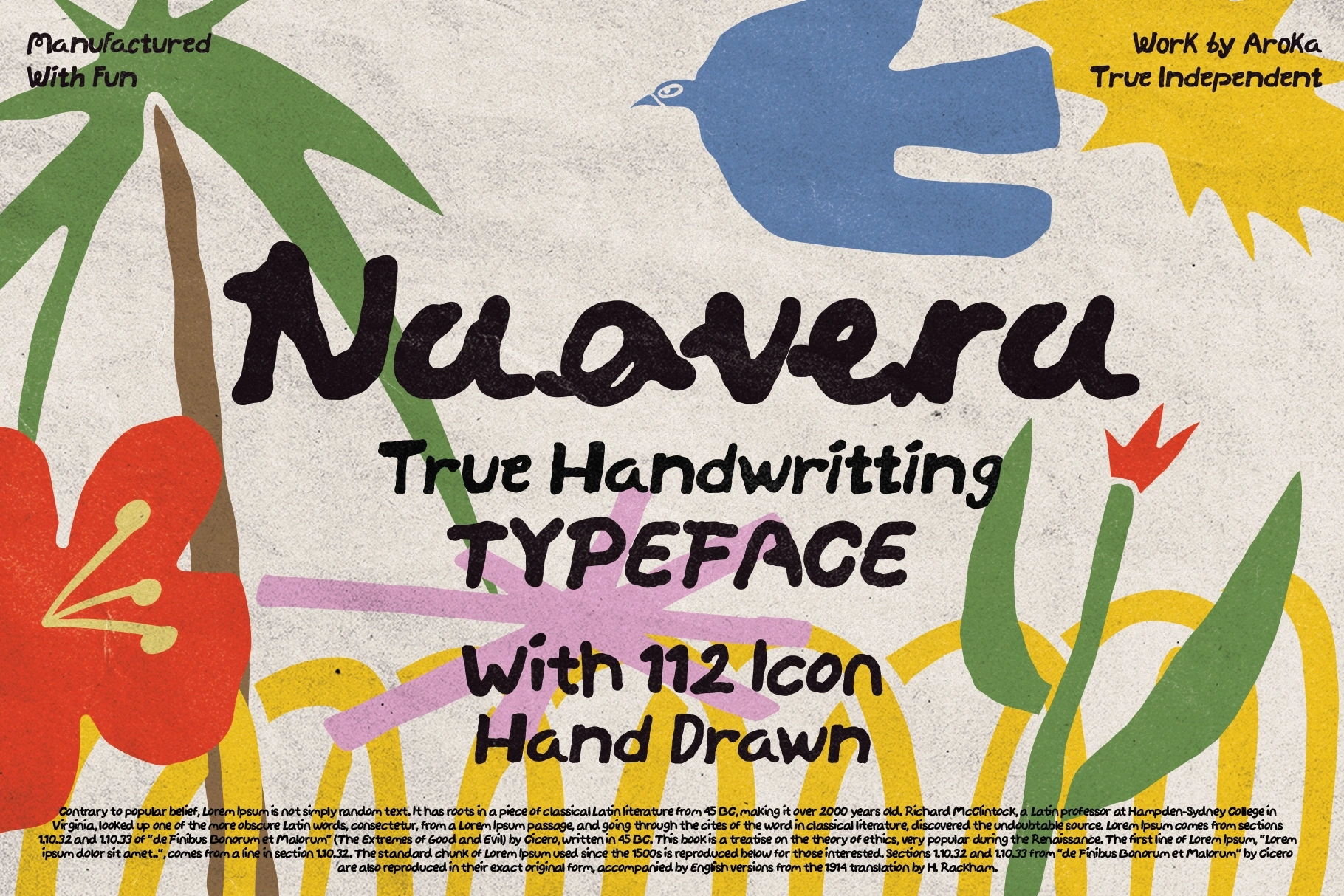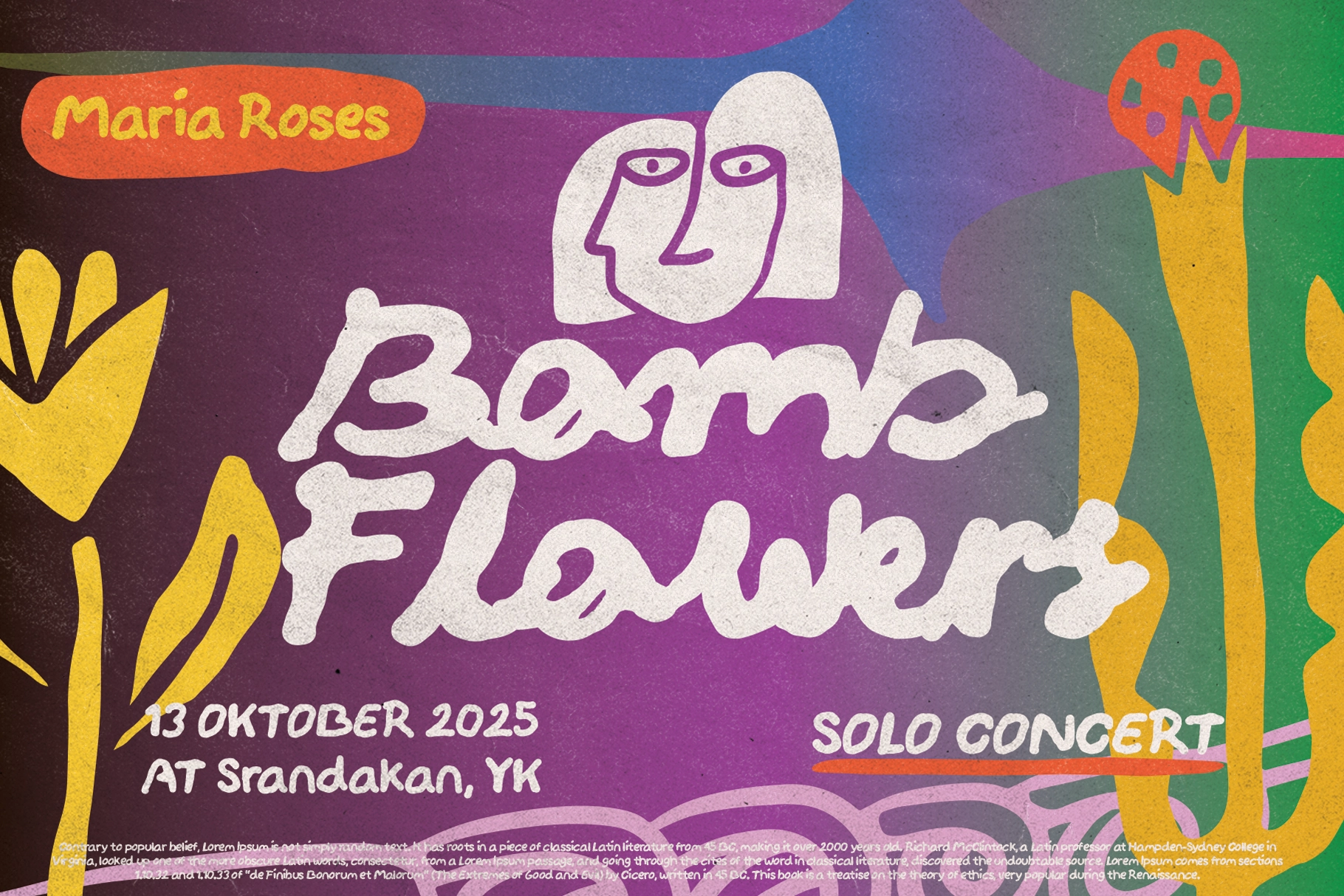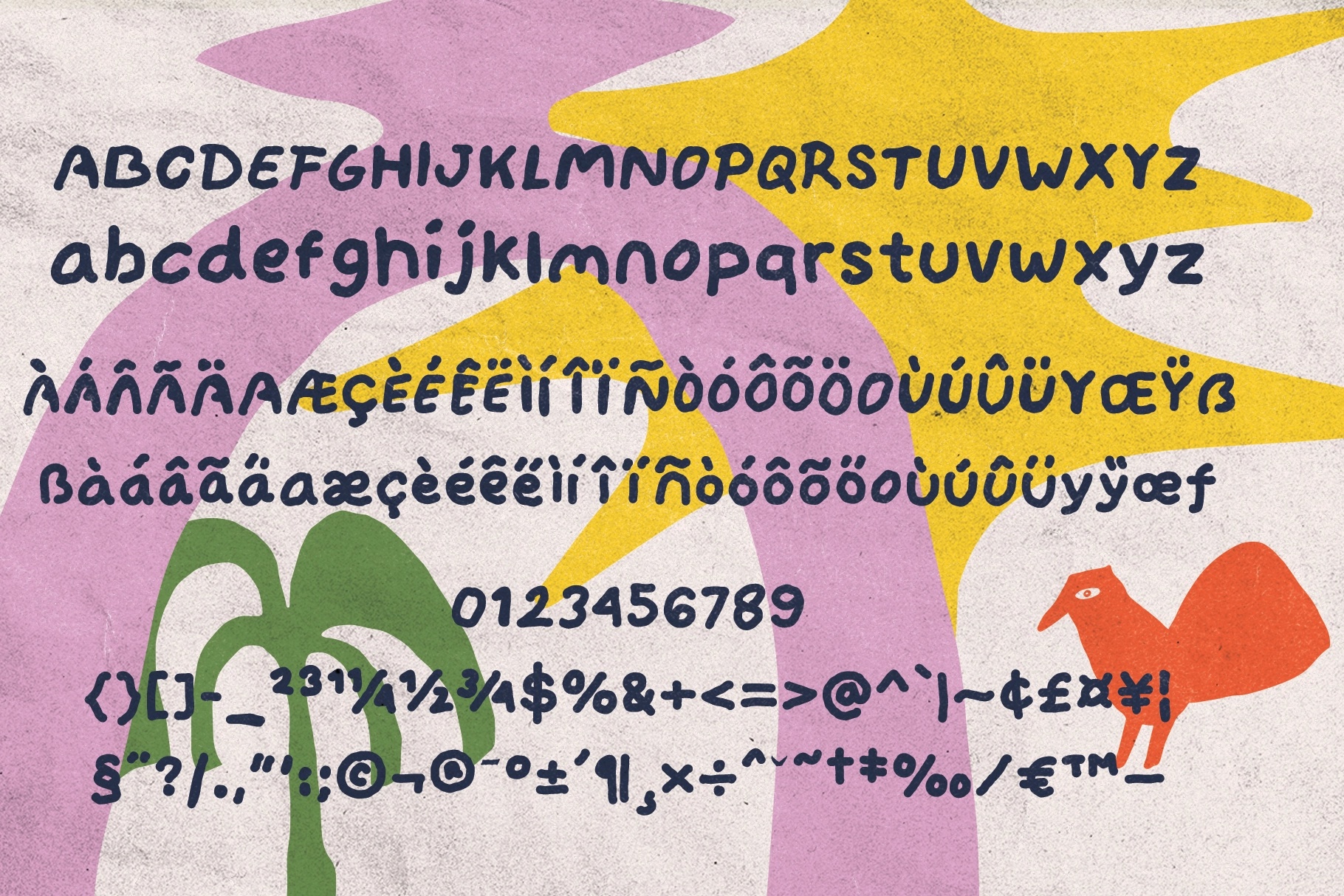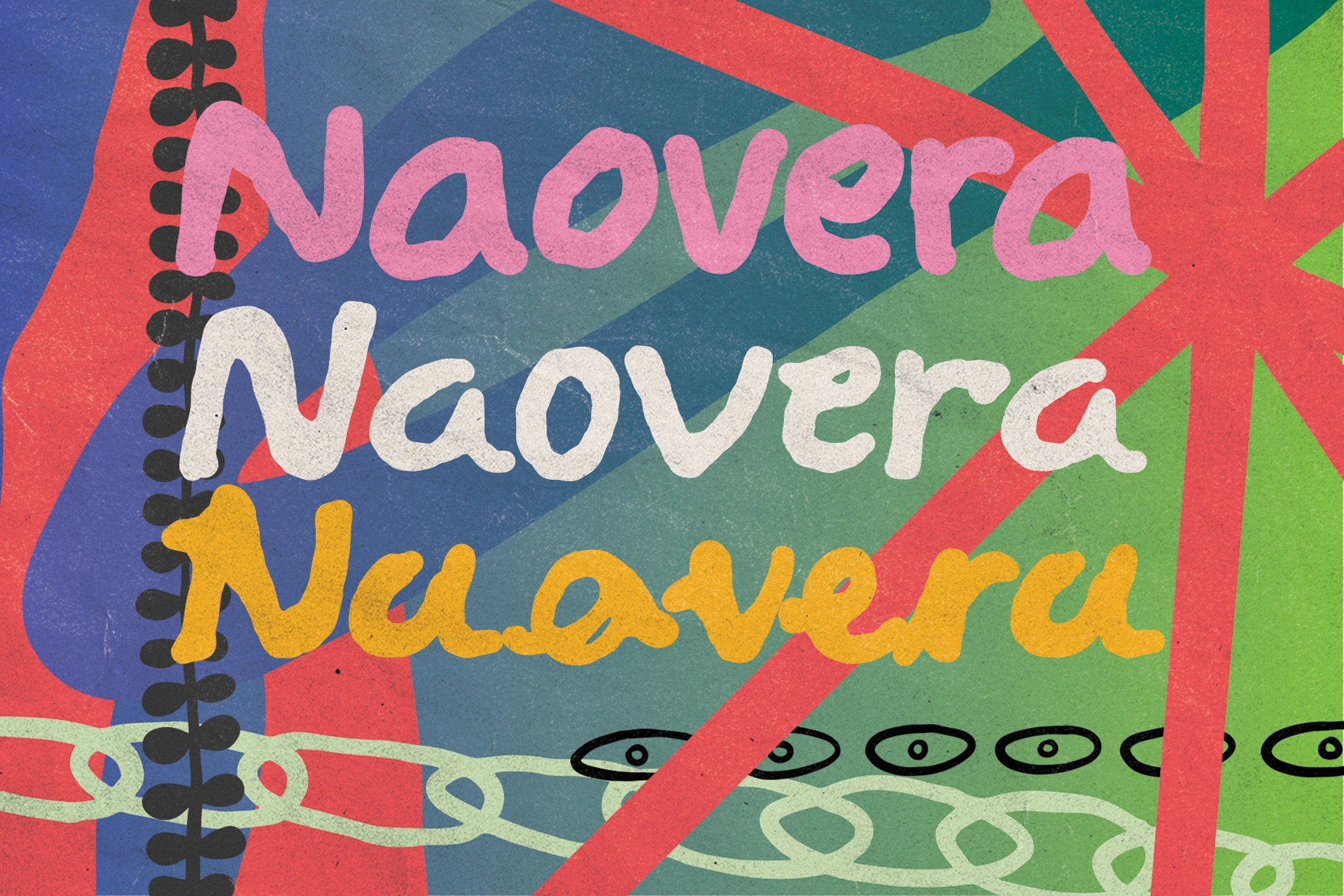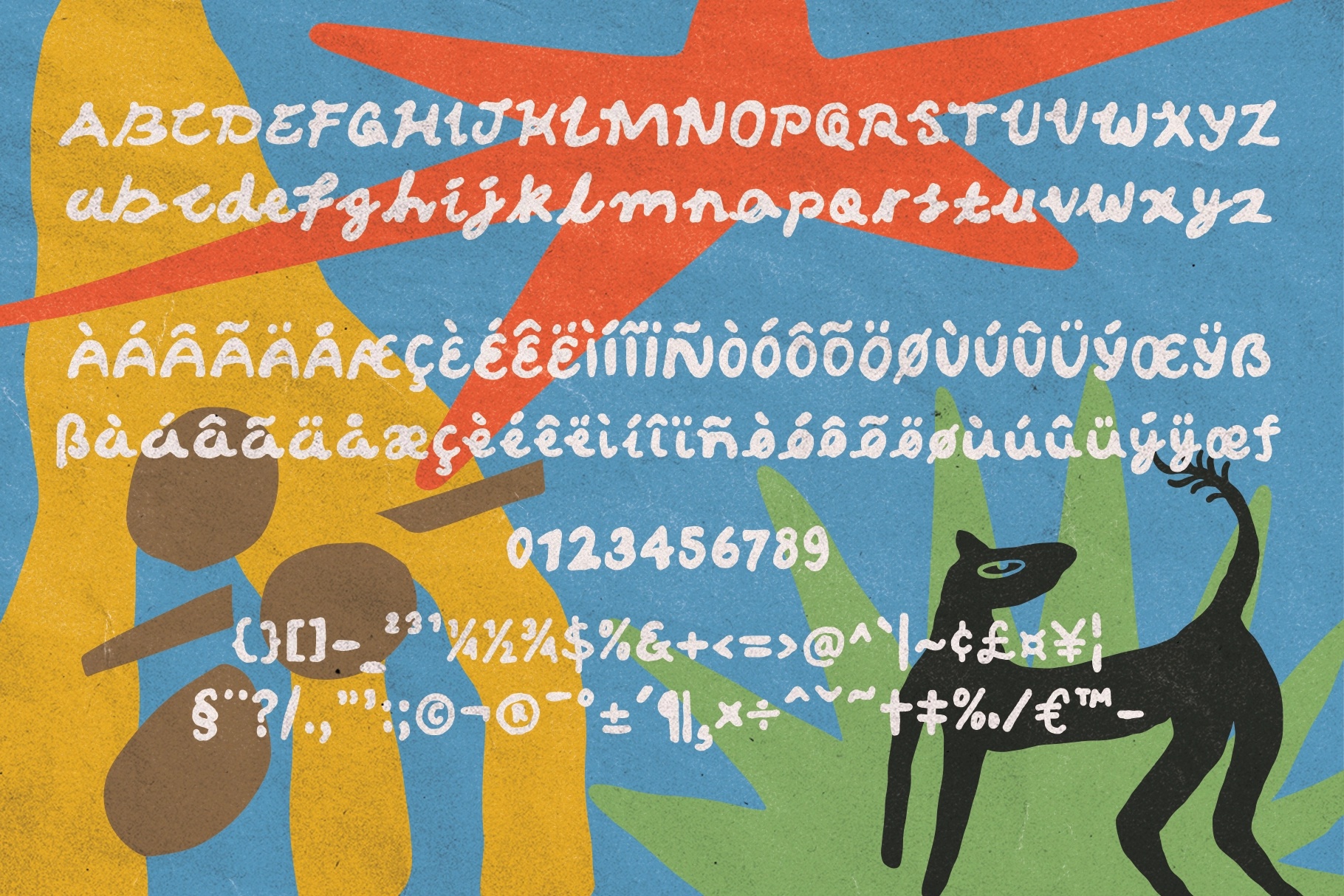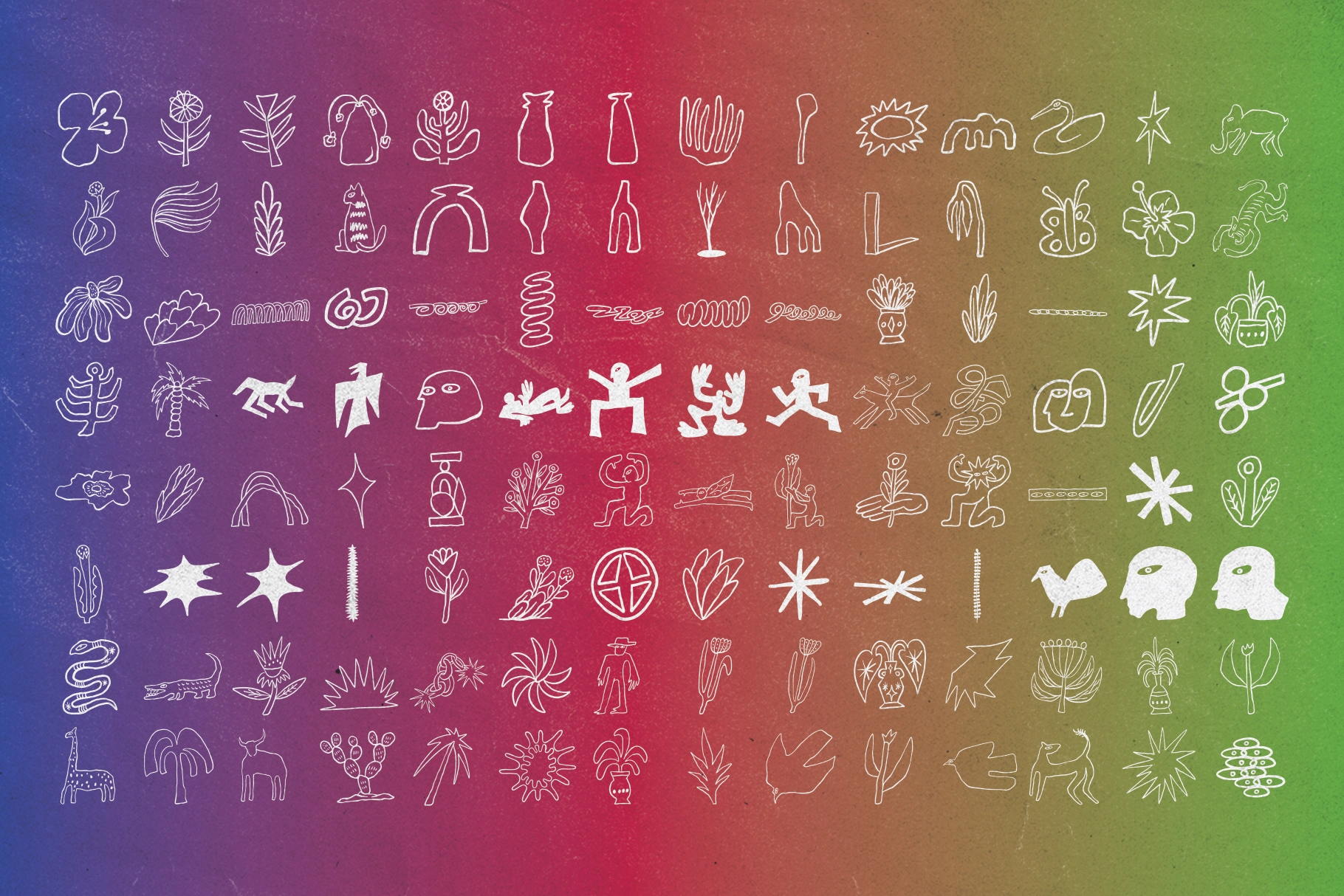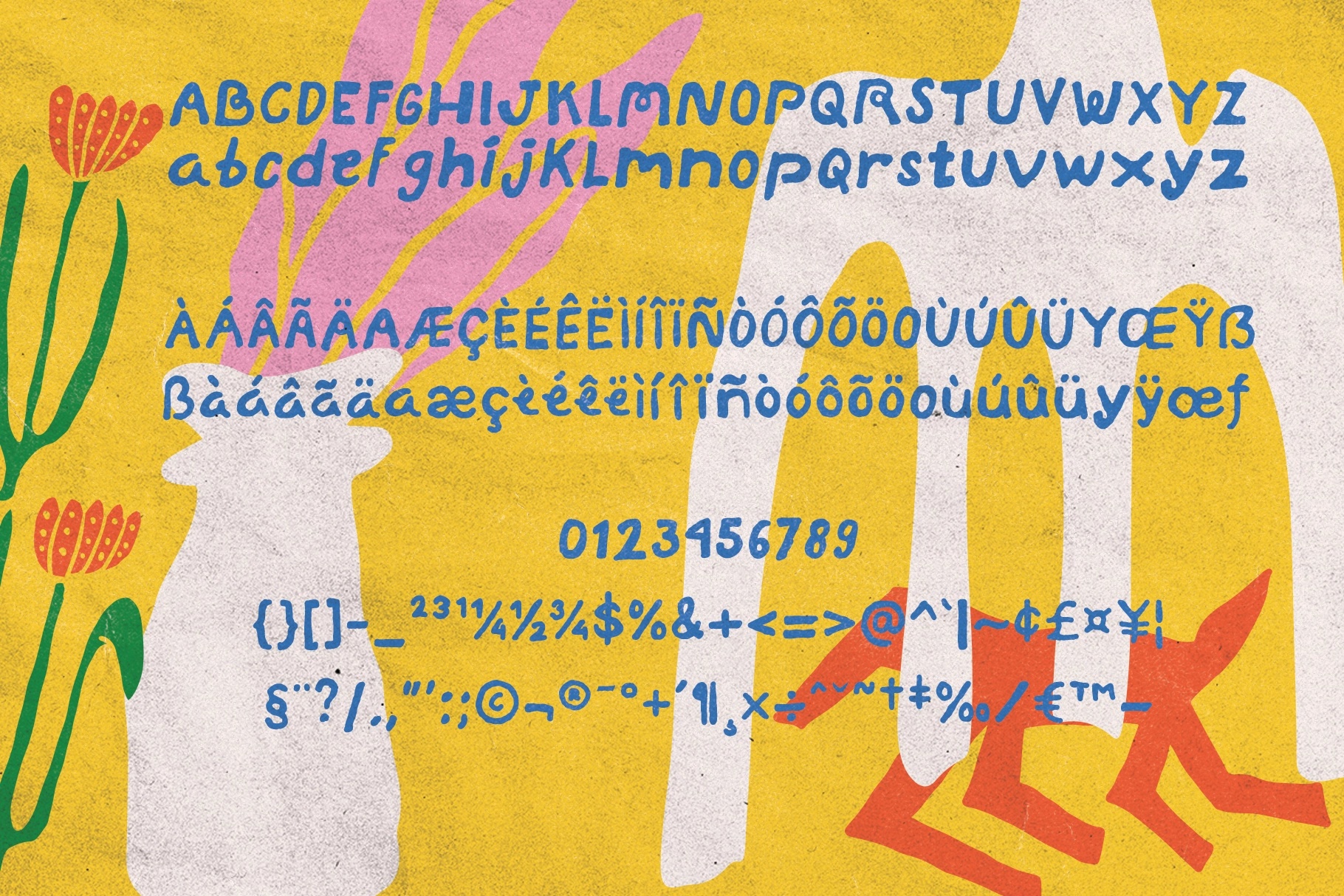
Naovera - Organic Handwritten Font
Naovera - Organic Handwritten Font is a lively and expressive typeface inspired by the carefree atmosphere of music festivals and creative freedom. Its natural brush-like strokes and imperfect shapes capture the essence of true handwriting, adding a warm, personal, and artistic feel to any design.
Perfect for posters, branding, packaging, social media graphics, invitations, and creative projects, Naovera brings an organic and joyful character to your work. Paired with a rich collection of hand-drawn icons, it allows you to create unique and playful compositions with ease.
- Uppercase & lowercase characters
- Organic handwritten style for expressive designs